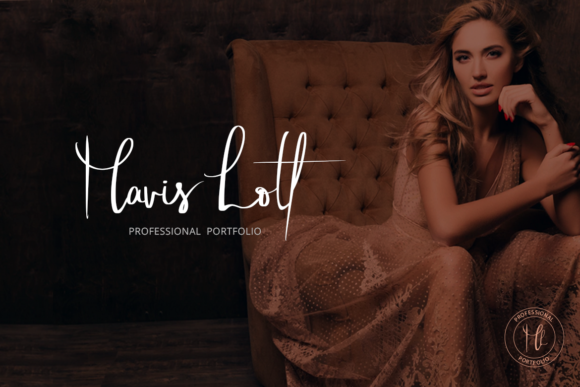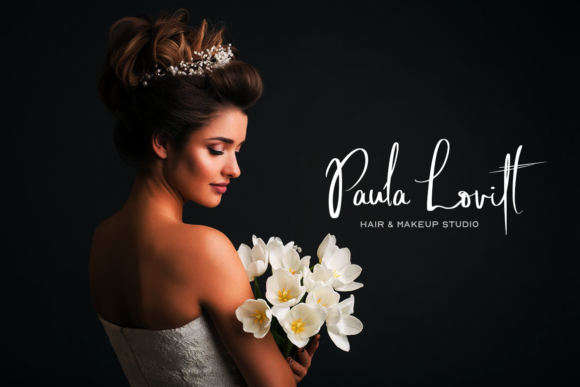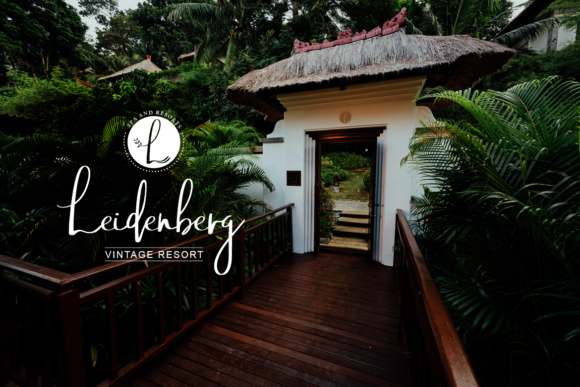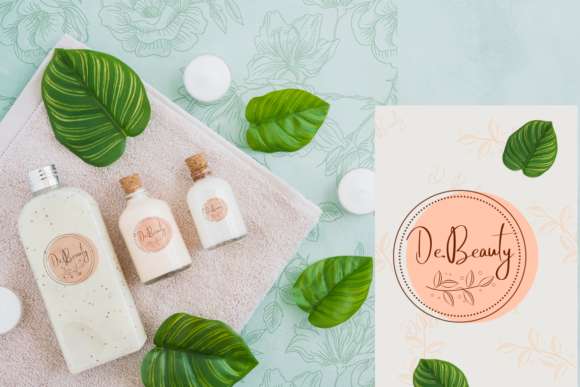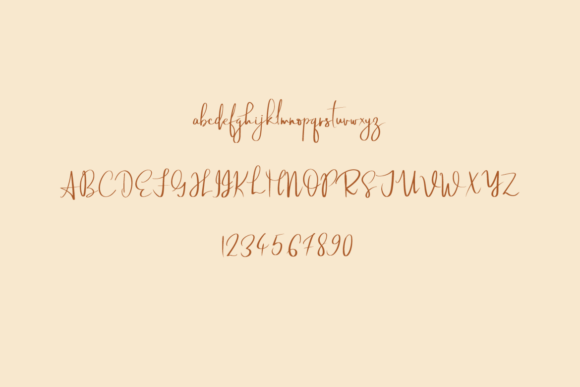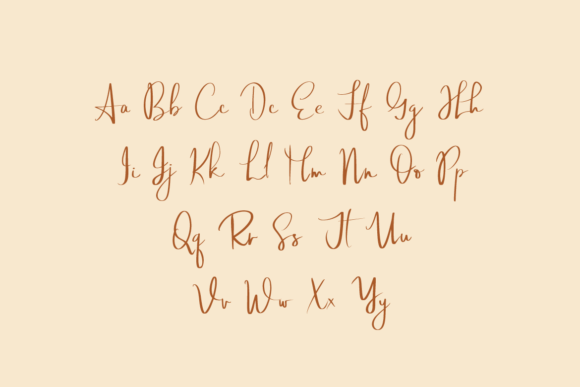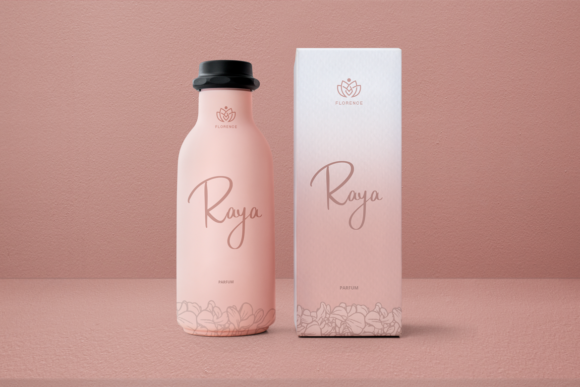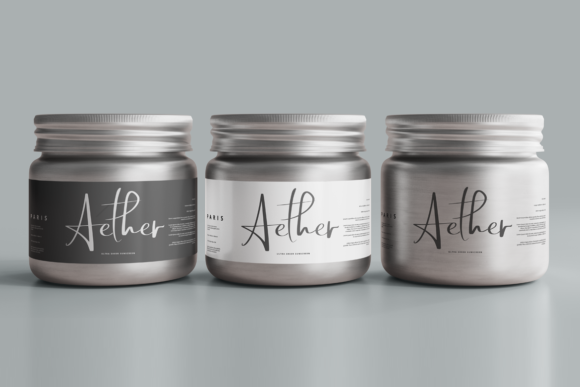
Amigos Font
About Amigos Font
“Introducing Amigos, a free-flowing script font that exudes elegance and sophistication. This font has been meticulously crafted for those who require a refreshing and stunning aesthetic in their designs.
Amigos is not just a font; it’s a design tool that brings your creative vision to life. Its free-flowing nature is a testament to the beauty of handwritten script, adding a personal touch to any project it graces. Whether you’re designing packaging products, invitation cards, flyers, mockups, event posters, or anything else that requires high-quality vibes, Amigos is the font for the job.
The versatility of Amigos allows it to be used across a wide array of applications, catering to diverse needs and requirements. Its beautiful and balanced character fits well with a large design pool, making it a versatile choice for a wide range of applications.
In conclusion, Amigos is more than just a pretty face. It’s a powerful tool that can help you create stunning, SEO-friendly content. It’s a font that was crafted with care, designed to deliver the results you want. So why wait? Start creating with Amigos today, and see the difference it can make in your work.”